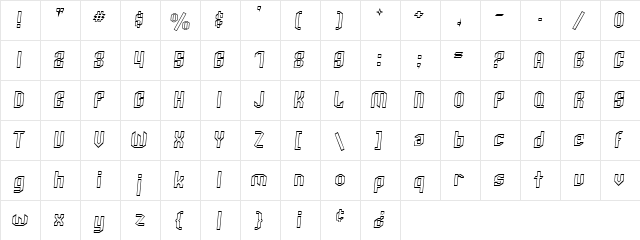
Archery Black Outline Italic
Design Context for Archery Black Outline Typeface
Archery Black Outline is built around its visual character rather than neutral utility — its distinctive forms are designed to make an impression at display sizes. Its italic angle brings a sense of urgency and motion to the letterforms.
Font Pairing: Pair with a clean neutral sans-serif for body copy to let Archery Black Outline's character lead without overwhelming the composition.
Pro Tip: Treat Archery Black Outline as the centrepiece of your typographic hierarchy. One strong heading set in a decorative face can carry an entire layout.